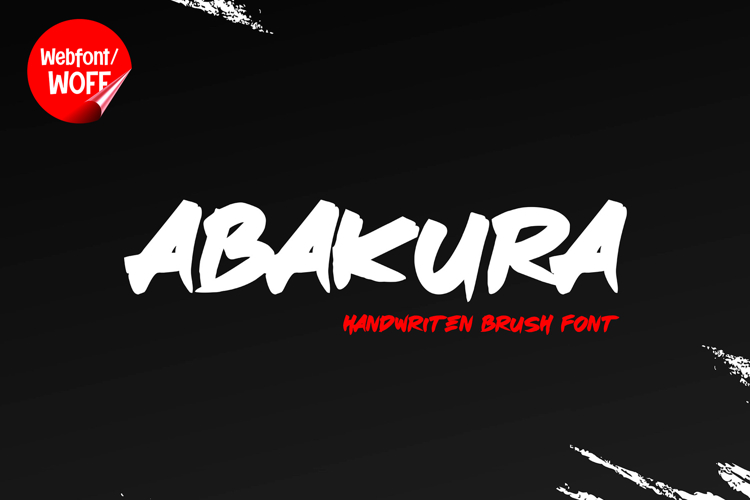
Abakura | Japanese Brush Display Webfont for Artistic
Abakura is a display webfont inspired by traditional Japanese brush lettering, designed to bring an artistic and expressive touch to modern website design. With its dynamic strokes and handcrafted appearance, this font captures the essence of brush calligraphy while maintaining a clean and bold presence suitable for digital use. It is an ideal choice for projects that aim to convey creativity, culture, and strong visual identity.
Abakura features a full set of uppercase characters designed with expressive brush-style strokes. Each letter carries a natural flow and variation, mimicking the look of hand-painted ink. These bold and artistic letterforms are perfect for headlines, banners, hero sections, and featured content that require strong visual impact. The brush effect adds movement and energy, helping content stand out and feel more engaging.
In addition to letters, Abakura includes numbers and punctuation, allowing for flexible usage across various elements of a website. It can be used for promotional text, event information, navigation highlights, and other short content areas while maintaining a consistent artistic style. Every character is crafted to align with the overall brush aesthetic, creating a cohesive visual experience.
With multilingual support, Abakura includes a wide range of accented characters, making it suitable for international use. This ensures that content can be displayed clearly across different languages while preserving the unique brush-inspired style. It is a great choice for global brands, creative agencies, and cultural projects.
The Japanese brush style of Abakura makes it especially suitable for artistic and themed websites. It works well for restaurant branding, Asian-inspired products, cultural events, creative portfolios, music platforms, and lifestyle blogs. The expressive strokes create a strong atmosphere and help communicate a distinctive visual tone that stands out in modern web design.
Despite its artistic appearance, Abakura is designed with readability in mind. The spacing and structure of each character are carefully balanced to ensure clarity, particularly when used in display sizes. This makes it effective for key visual elements without overwhelming the overall layout.
Abakura is a display webfont that blends traditional brush aesthetics with modern digital functionality. Its bold strokes and expressive forms add depth and character to website design, making it a powerful tool for creating visually memorable experiences. For projects that require an artistic, cultural, and dynamic typographic style, Abakura offers a unique and compelling solution.